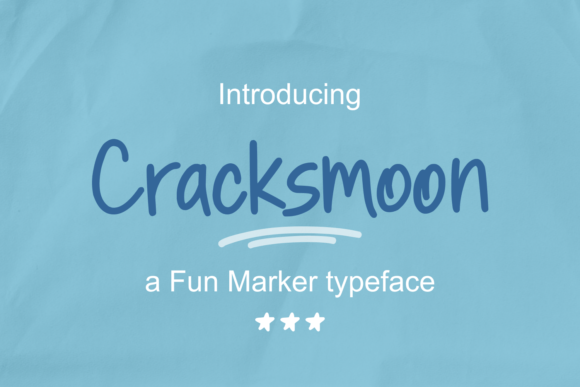
Journey into the realm of typography with Cracksmoon Font, a delightful script font crafted with meticulous care by zamjump. Its enchanting strokes and playful curves evoke a sense of warmth and charm, adding a touch of personality to your creative projects. Gaze upon the beauty of this font, where each letter dances across the page like a ray of sunshine on a summer's day.
Indulge in the versatility of Cracksmoon Font. Whether you're a seasoned designer or just starting your creative journey, this font is your perfect companion. Its fluid lines and graceful swashes effortlessly adapt to a wide range of design styles, from whimsical invitations to elegant branding. Unleash your creativity and let Cracksmoon Font guide you towards masterpieces that leave a lasting impression.
Ignite your imagination with Cracksmoon Font's captivating allure. Its playful nature transforms ordinary words into captivating expressions, adding a spark of delight to your designs. Picture your creations adorned with this font, captivating your audience with its charm and elegance. Each stroke, each curve, each letterform is a testament to the artistry and passion poured into its creation.
Embark on a typographic adventure with Cracksmoon Font. Let your designs flourish with its playful spirit, inviting your audience into a world of wonder and enchantment. Its versatility knows no bounds, making it the perfect choice for a multitude of projects. From enchanting children's books to whimsical logos, Cracksmoon Font breathes life into your creative endeavors.
Elevate your designs to new heights with Cracksmoon Font. Its enchanting presence adds a touch of magic to your creations, leaving an indelible mark on the hearts of your audience. Embrace the beauty of handwritten artistry and let Cracksmoon Font guide you towards typographic excellence. Discover the endless possibilities that await you with this captivating script font.